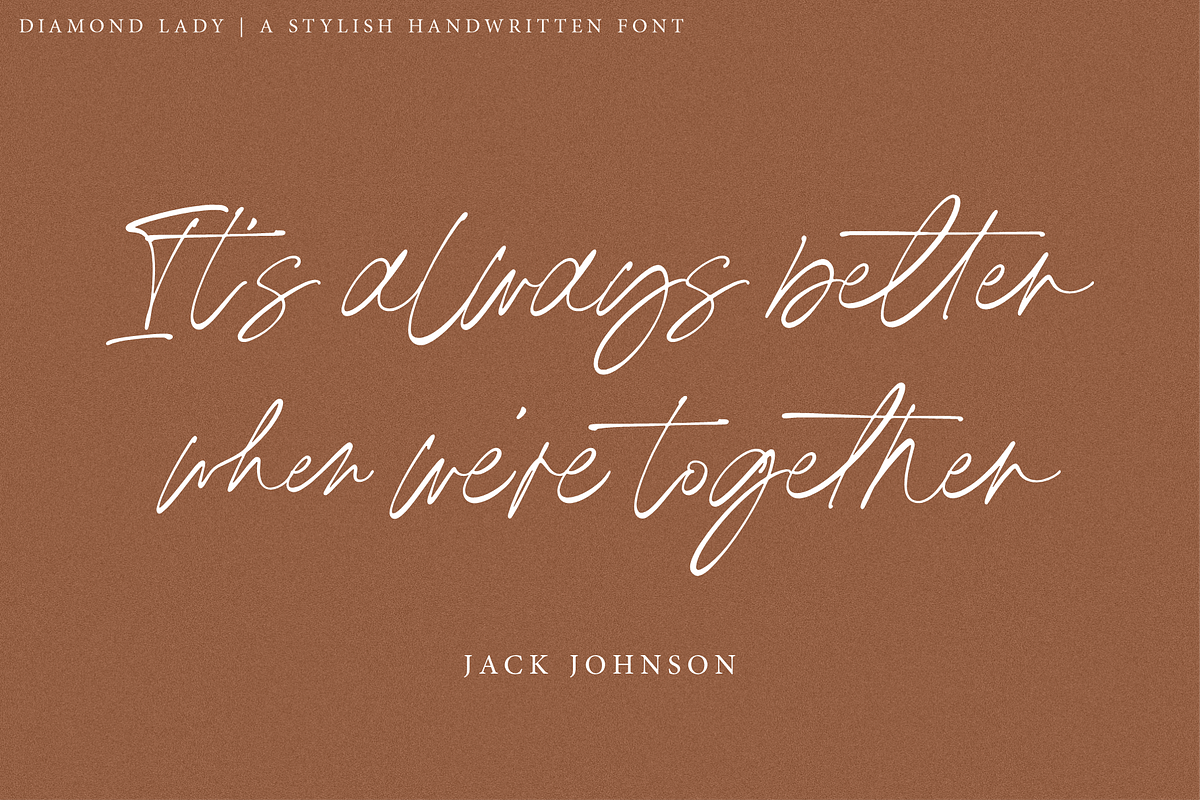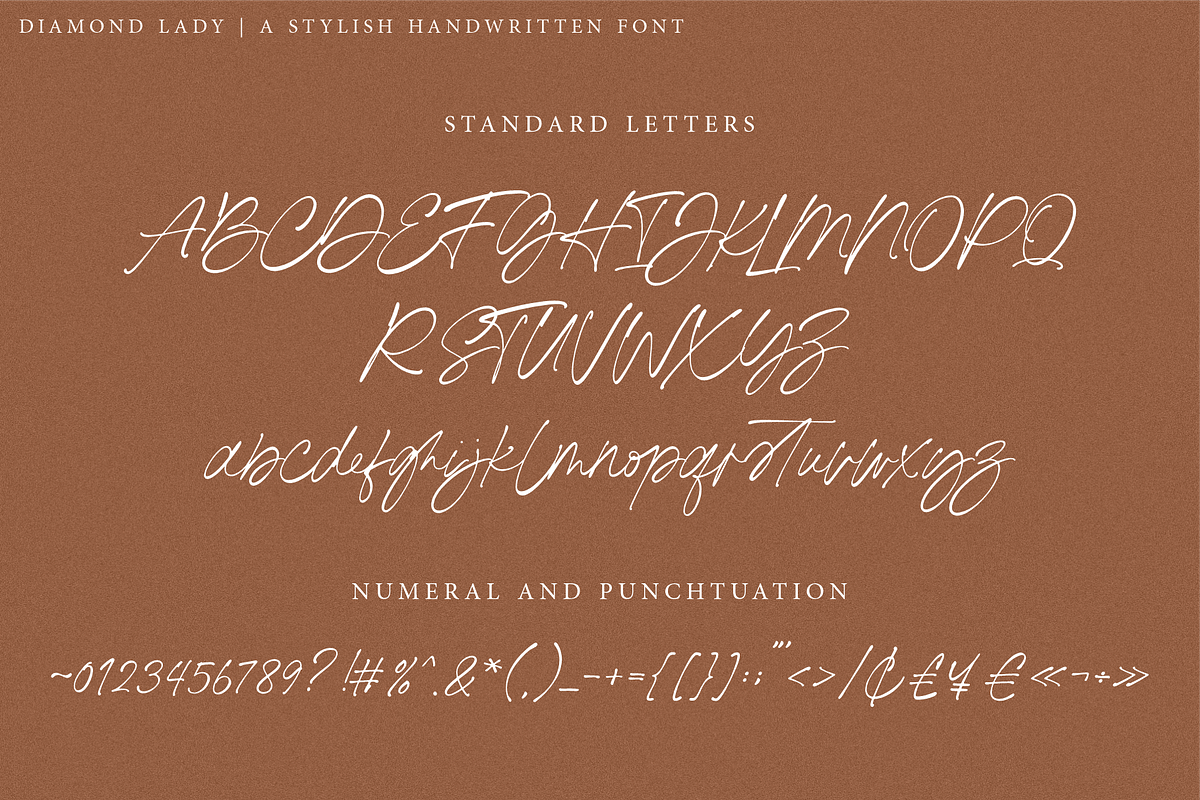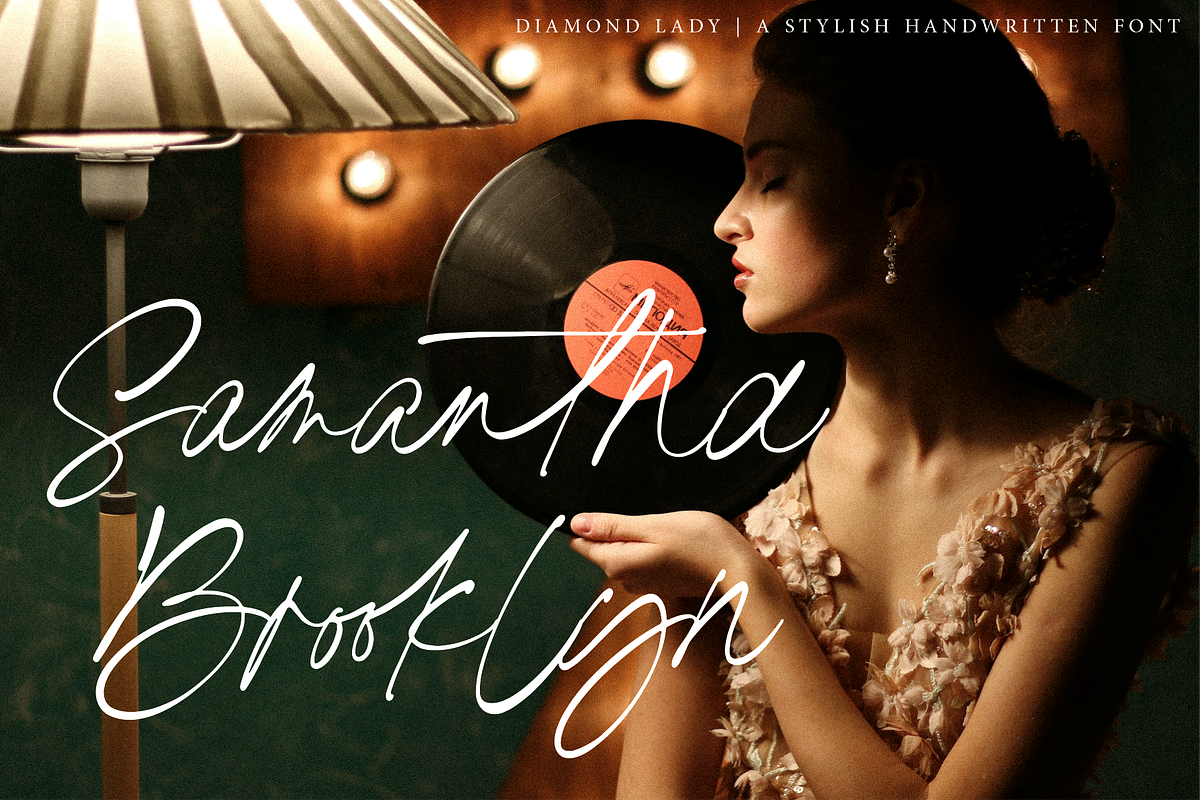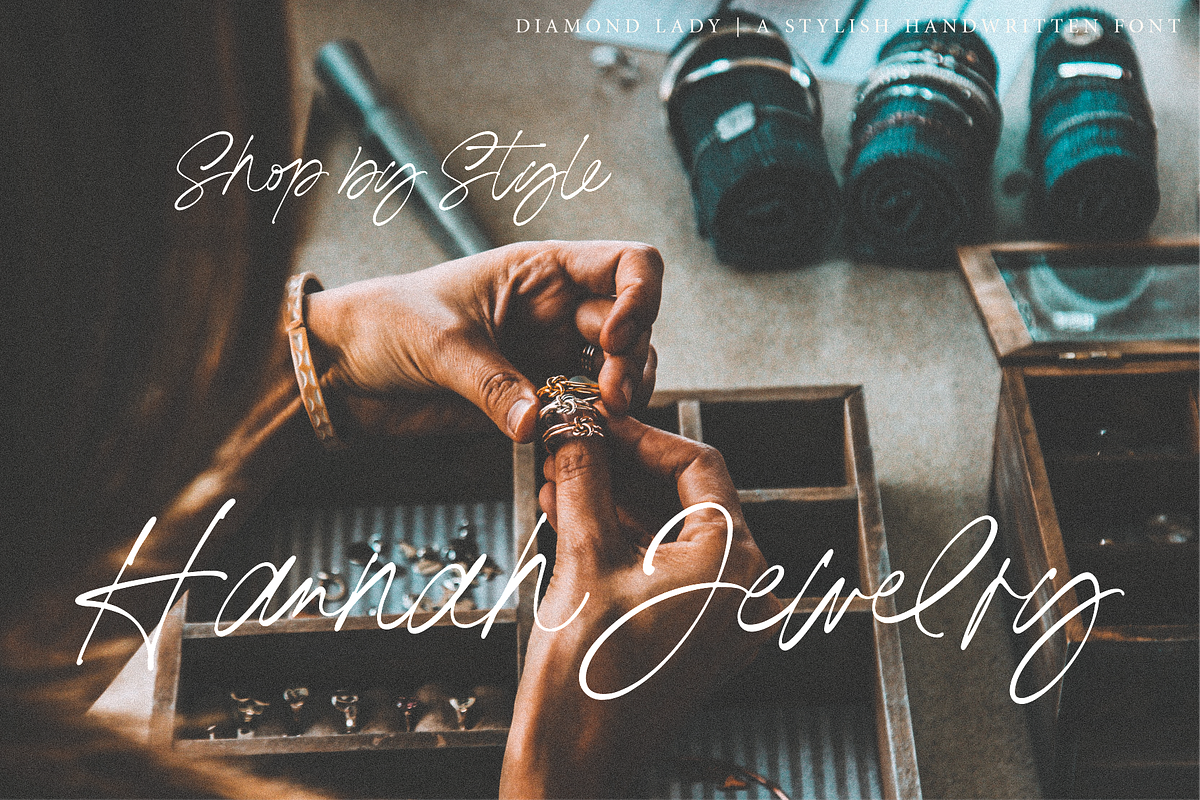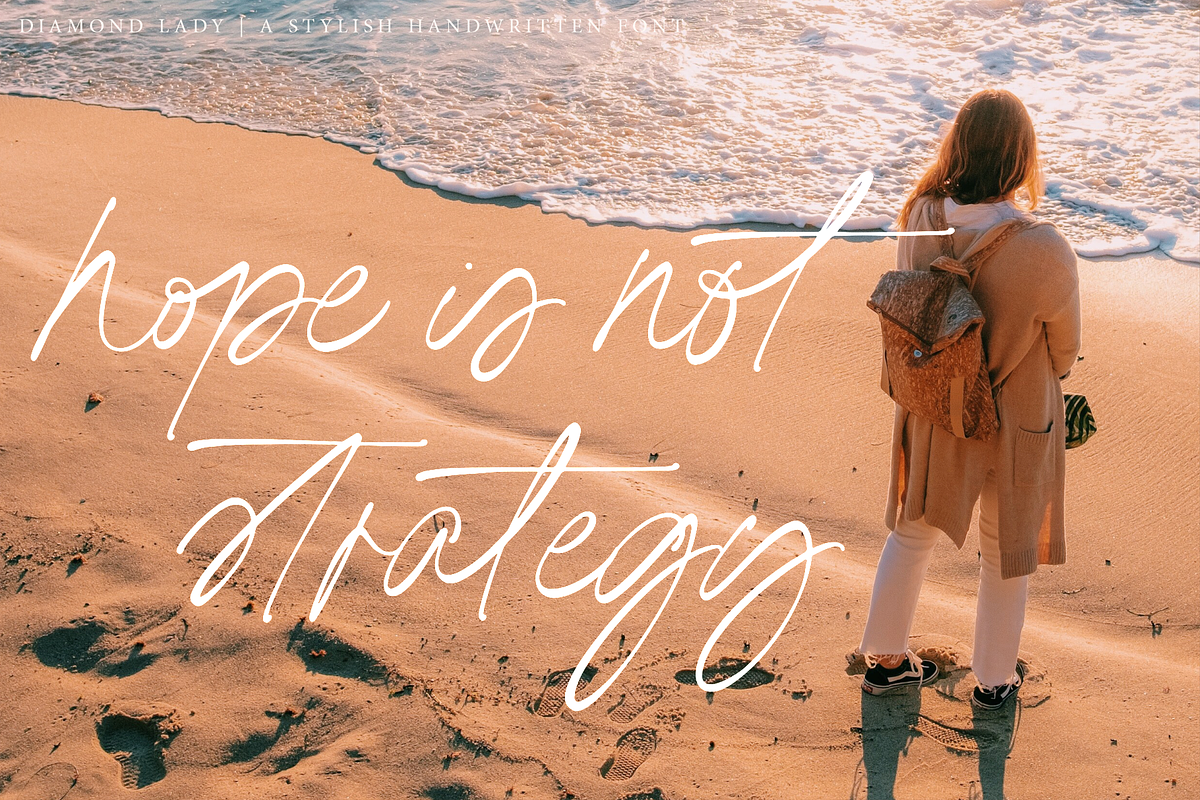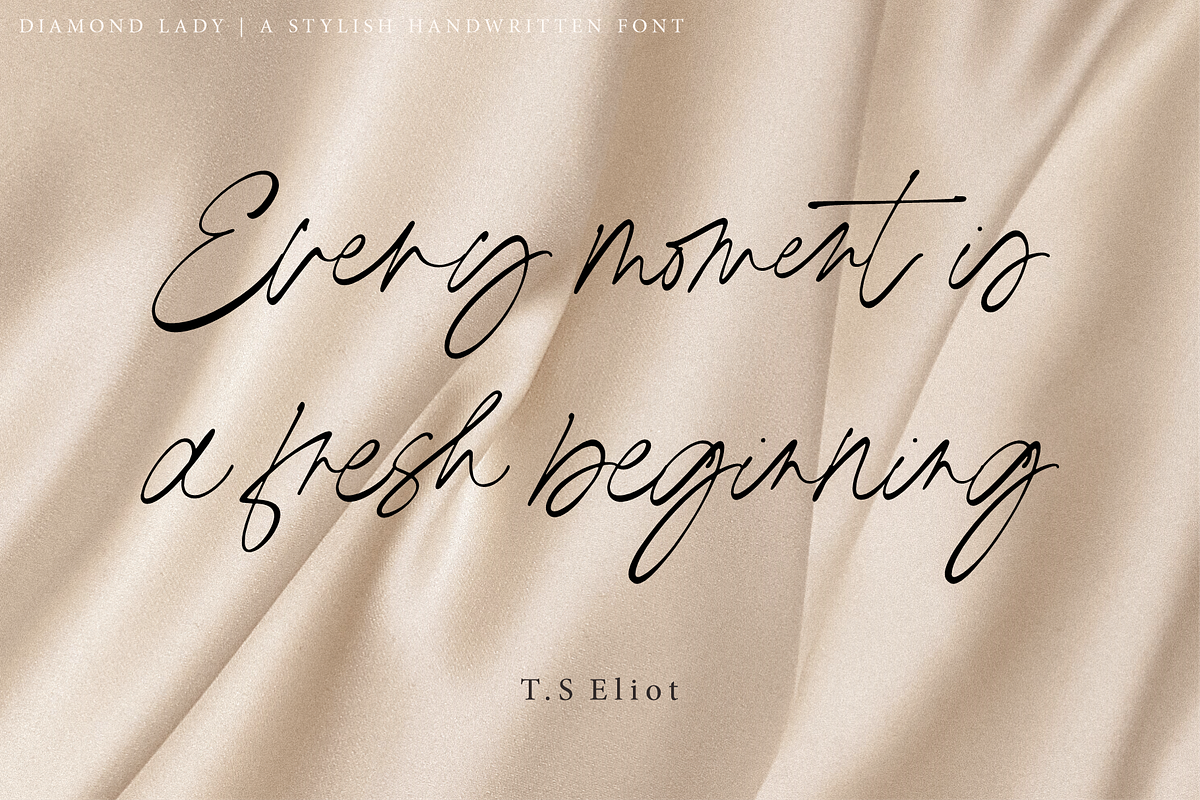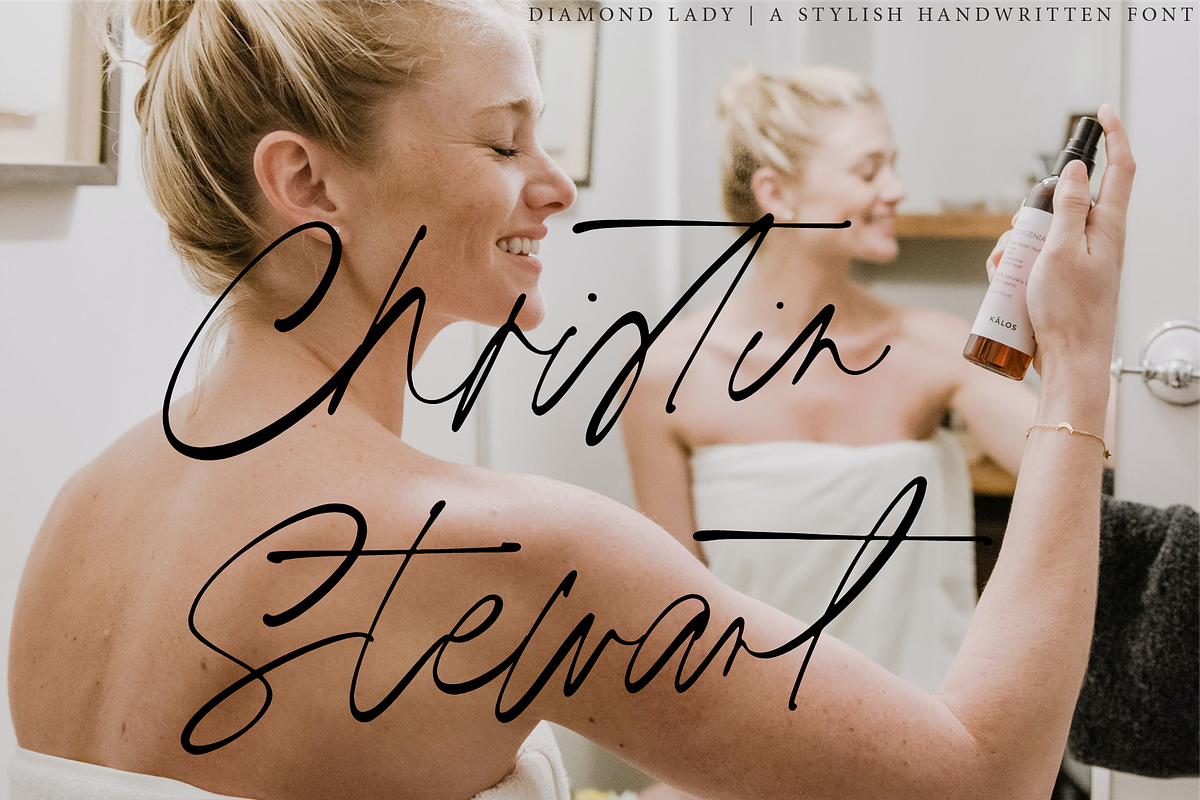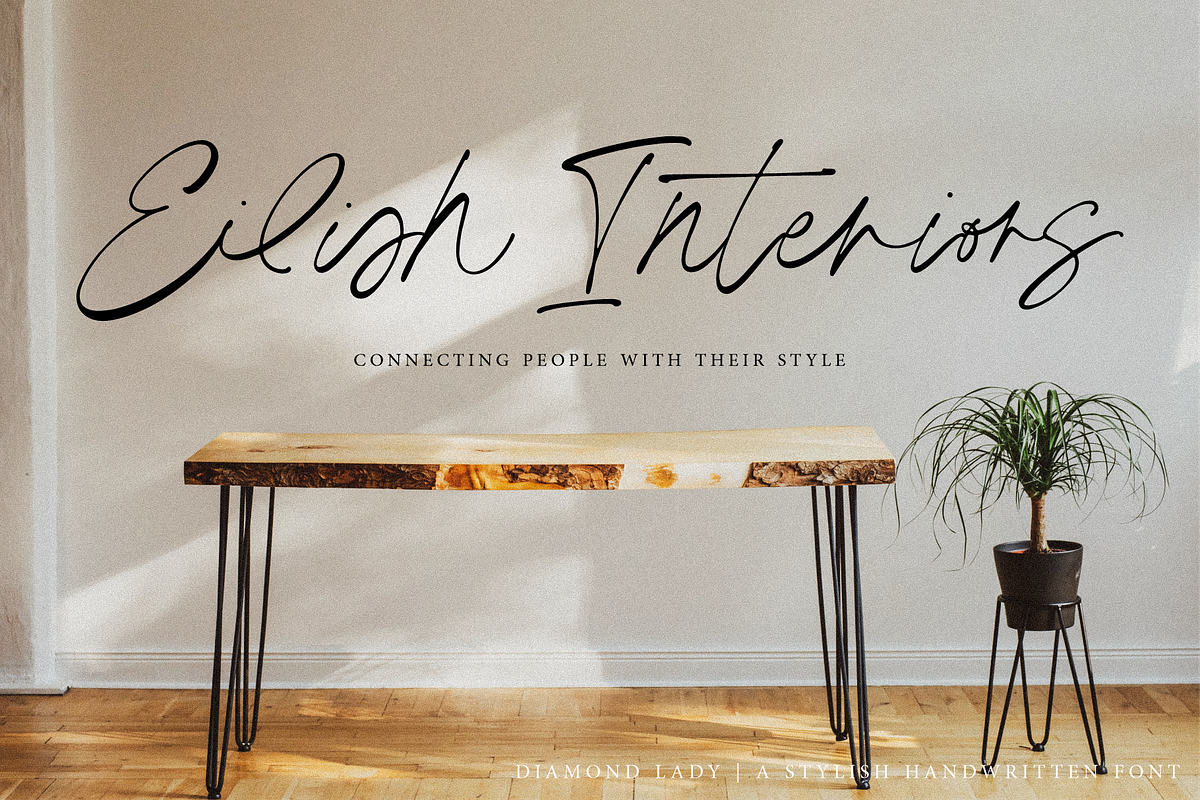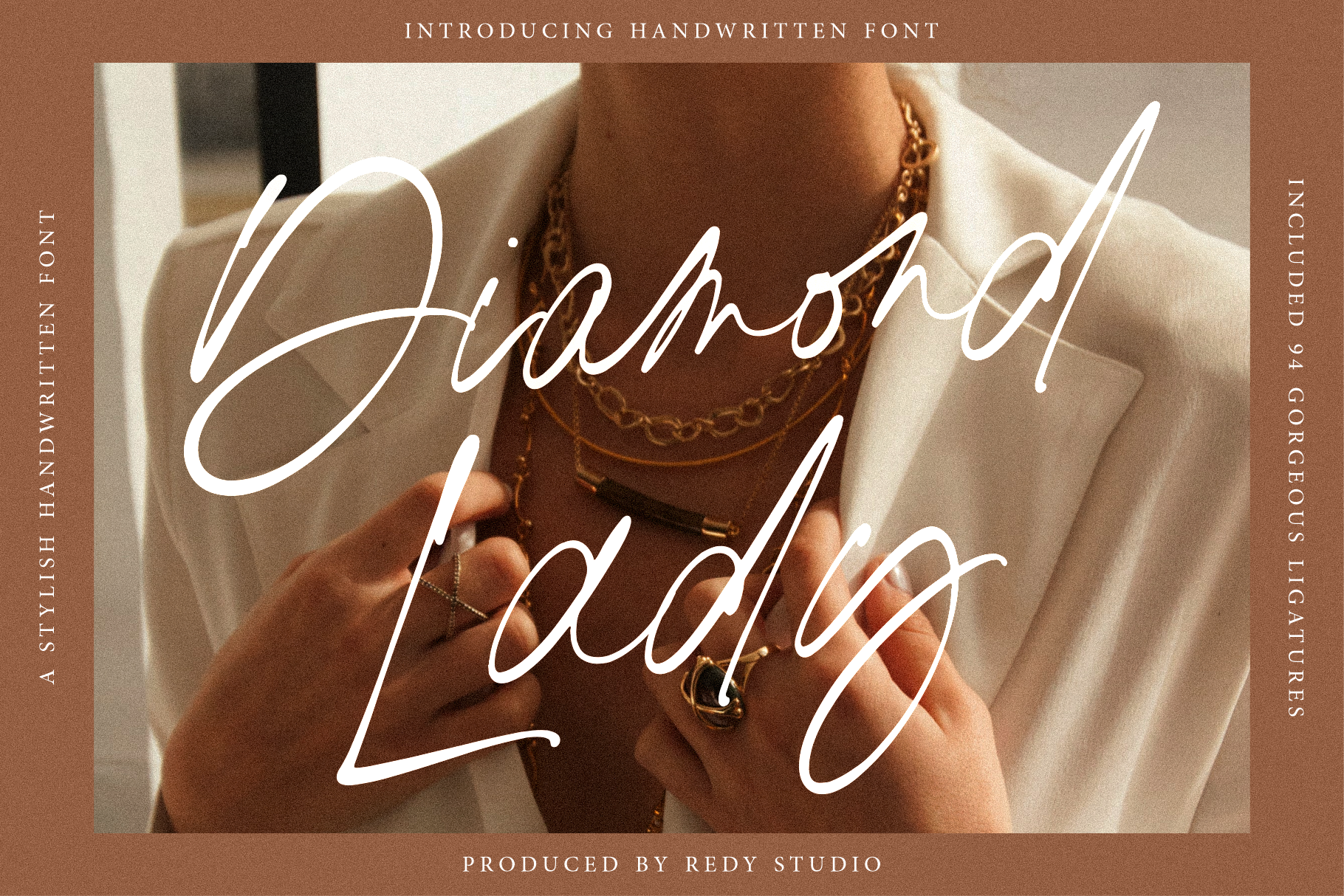
Diamond Lady – Handwritten Font
Diamond Lady is so gorgeous, she’ll steal your heart with her hand-lettering and handwritten font shapes, The idea of this font was to create as realistic as the possible texture of hand lettering and keep the style of Signature. Diamond Lady is a handwriting font with delicate curves and a unique blend of thick and thin lines. This font offers all the sophistication and beauty you could ask for in one package. It will help you to create an authentic modern signature or a stylish handwritten effect for your logotype and headlines. The font contains 94 ligatures, so it would be perfect for logos and branding with handwriting/sig logos look. She’s got all the real hand-lettered shine, loveliness, and romance attached to the art of hand lettering. Don’t hesitate, just get it!
Diamond Lady features:
- A full set of upper & lowercase characters
- 94 Gorgeous ligatures
- Multilingual symbols